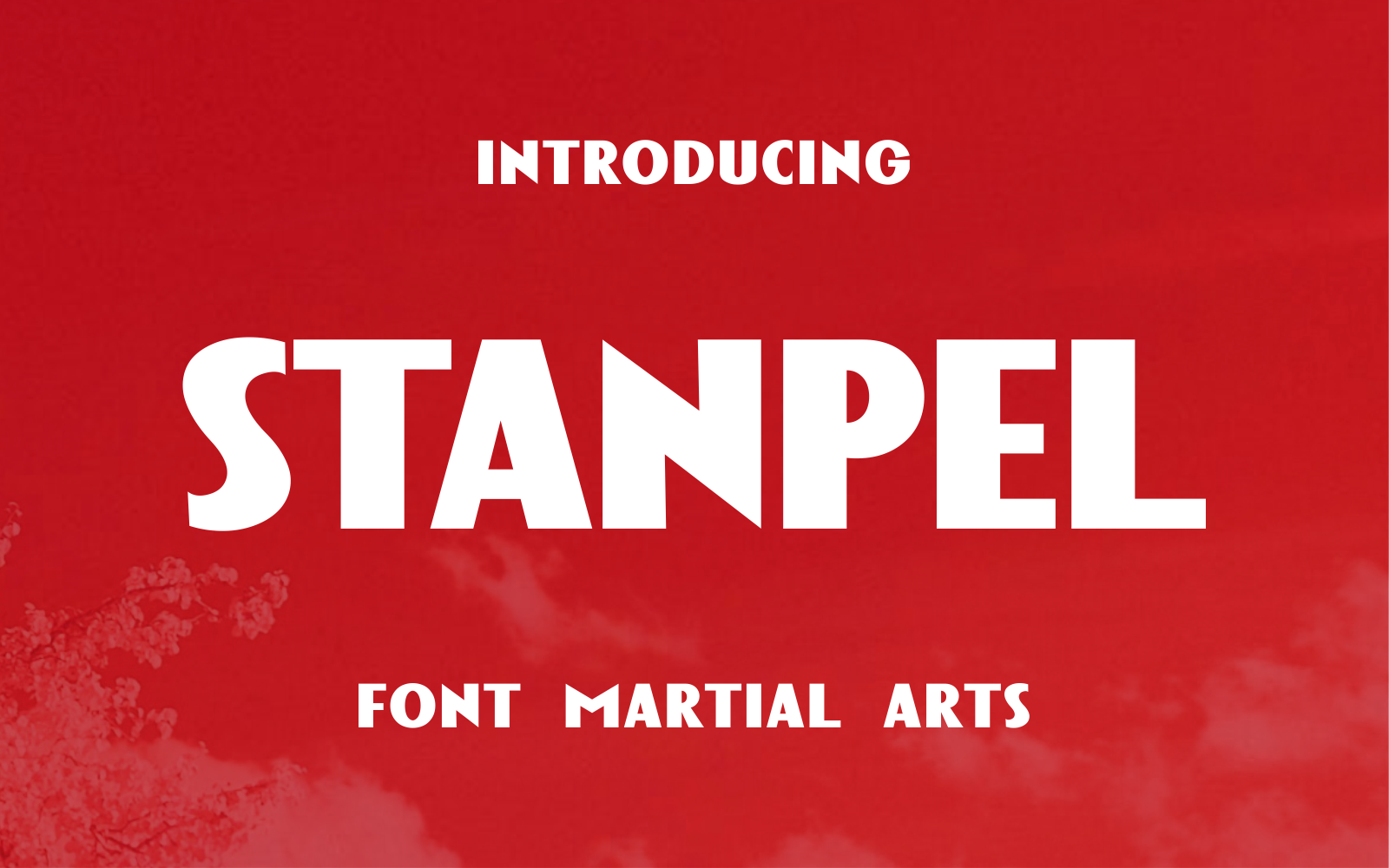
Stanpel - Bold Energy for Extreme Sports Font
Stanpel is a powerful and bold display font designed to embody strength, discipline, and raw energy. Perfectly suited for martial arts events, bodybuilding promotions, boxing posters, and all forms of extreme sports branding, Stanpel makes a fierce impression. Its strong lines and aggressive stance reflect intensity and motion—ideal for titles, logos, and competition banners. Make your message stand tall with Stanpel!